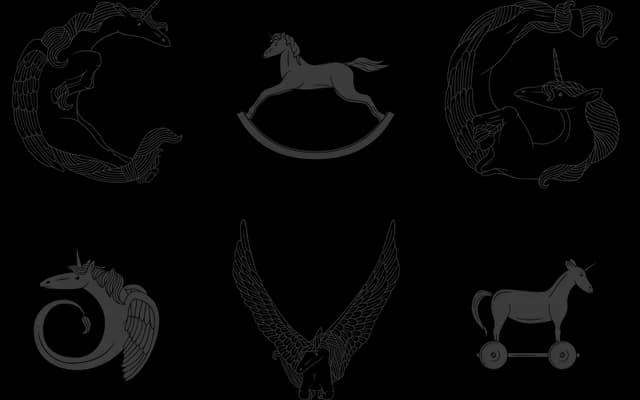
Pegacorn Initials
A set of hand-drawn decorative initials depicting unicorns and Pegasus, offered in line and filled styles for large-scale display use.
Each glyph in the full Latin alphabet is individually drawn with illustrative detail: flowing manes, feathered wings and mythological references drawn from popular culture and legend. The family ships with 357 characters including basic diacritics, a punctuation and symbol set, tabular figures and 71 custom illustrations. Intended for use at 48 points or above, where the fine linework and figurative detail can be properly read.
Ornate hand-drawn initials depicting unicorns and Pegasus, designed exclusively for large display sizes; the illustrative, figurative construction places it firmly in decorative display territory.